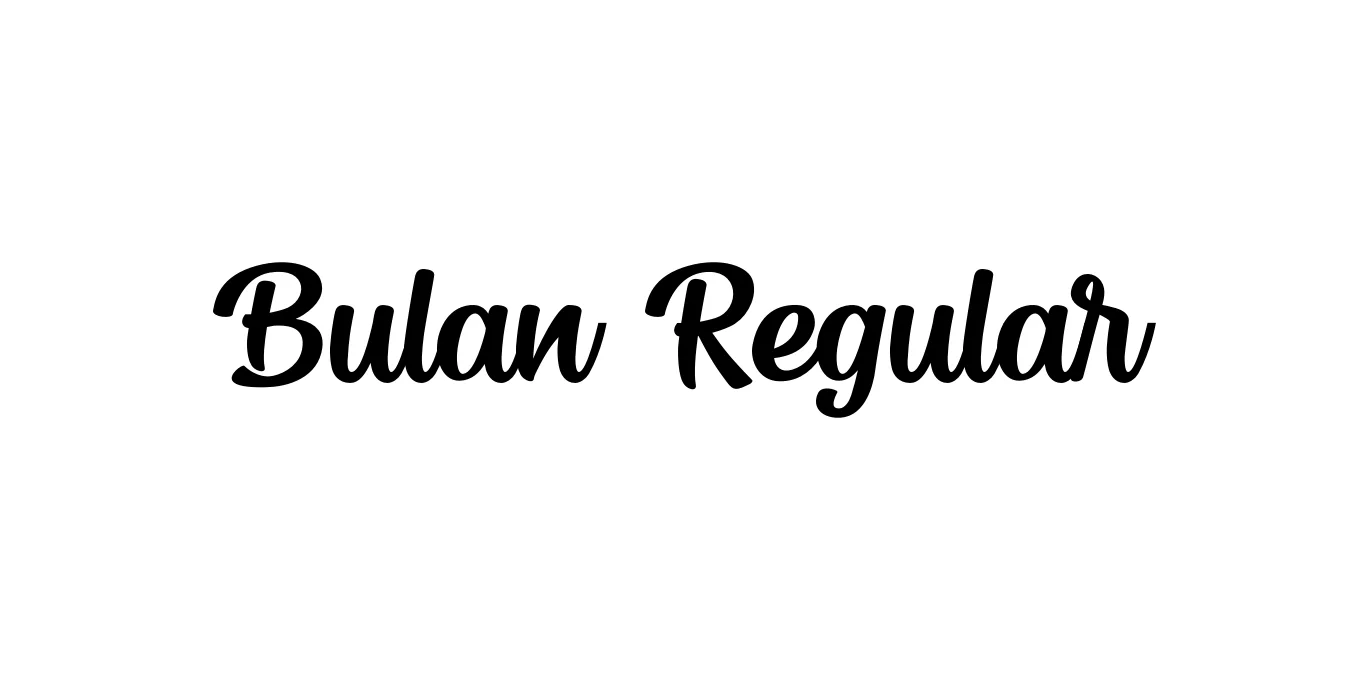
Bulan Regular
Designed by Namira Studio
Bulan Regular is a sophisticated and elegant script font designed by Namira Studio. It features fluid, hand-drawn strokes that evoke a sense of warmth and personal touch, making it ideal for projects requiring a feminine or artisanal aesthetic.
The font is characterized by its smooth curves and balanced letterforms, which ensure readability while maintaining a stylish flair. It is widely used in high-end branding, invitation design, and social media graphics where a distinctive, handwritten look is desired by creators worldwide.
Bulan Regular Best Uses
Perfect for elegant invitations and place cards.
Ideal for creating eye-catching Instagram quotes and graphics.
Works well for luxury logos and personal watermarks.
Adds a personal, heartfelt touch to digital or print cards.